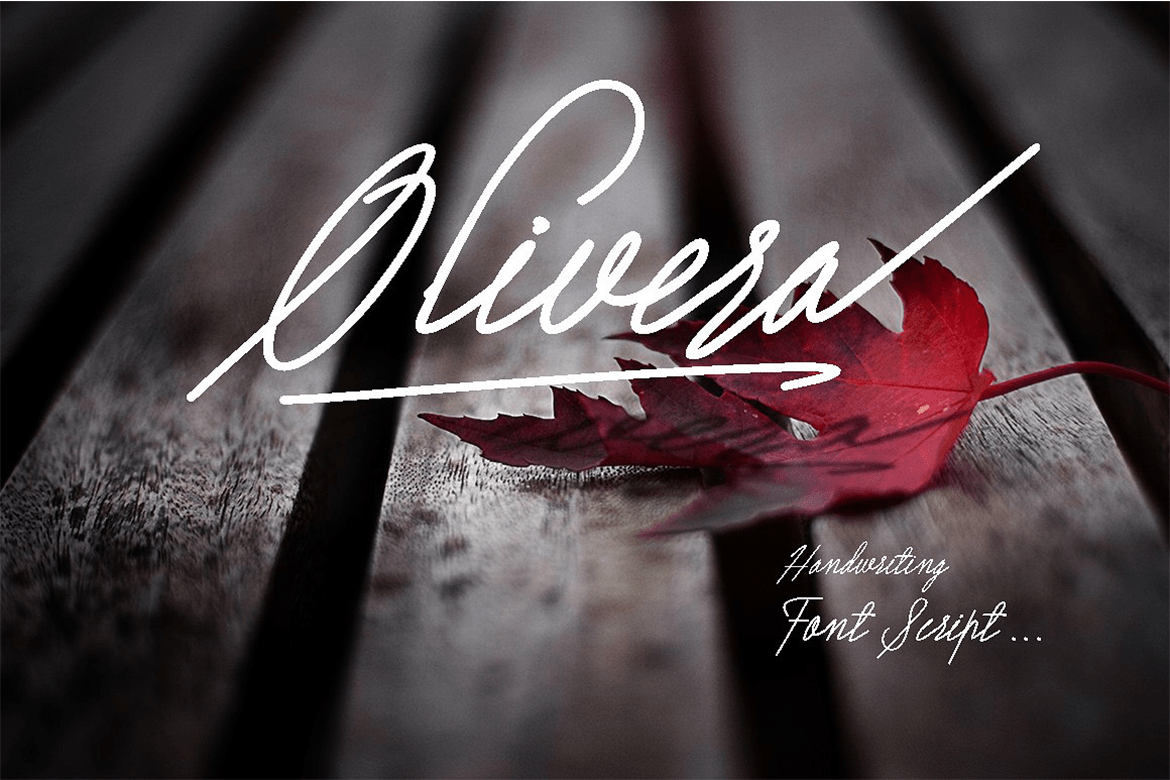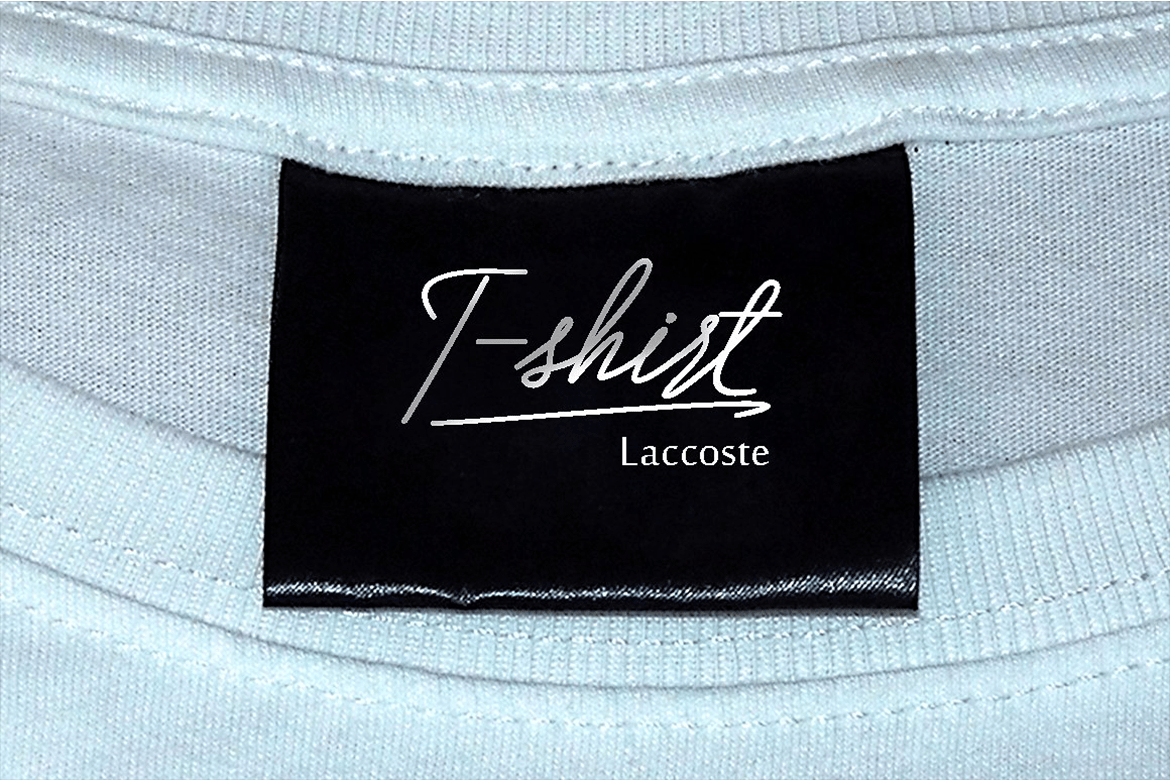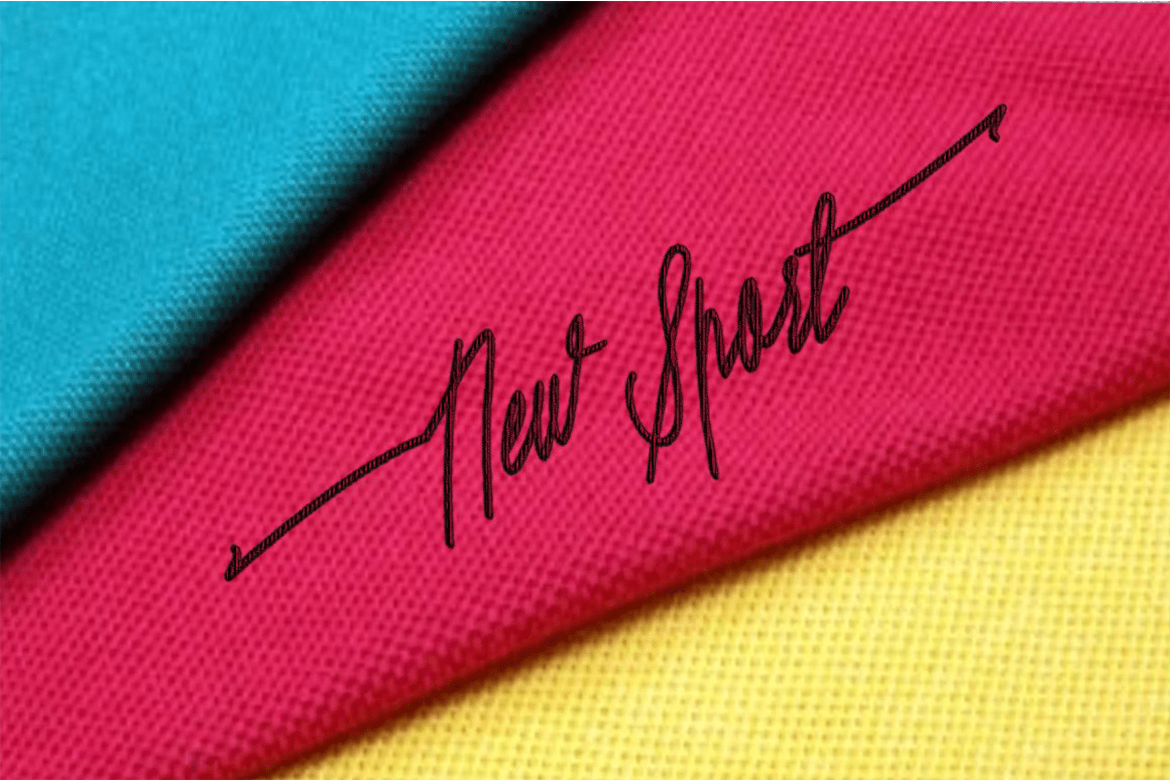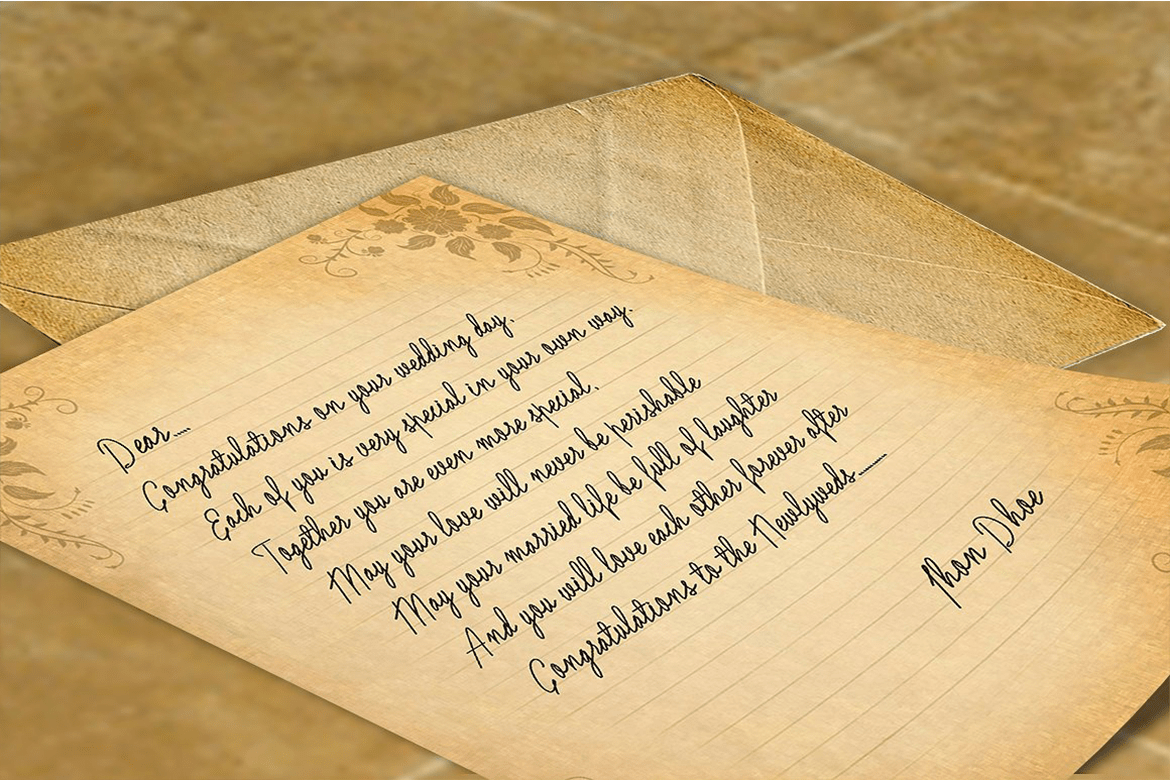
Olivera
Olivera is a script font that has the characteristic handwriting, it is very suitable to make certain label and event business and you could be using for a unique piece.
The alternative characters in Olivera Font were divided into several OpenType features such as Stylistic Alternates, Stylistic Sets, Swash and Ligature. The OpenType features can be accessed by using OpenType savvy programs such as Adobe Illustrator and Adobe InDesign.